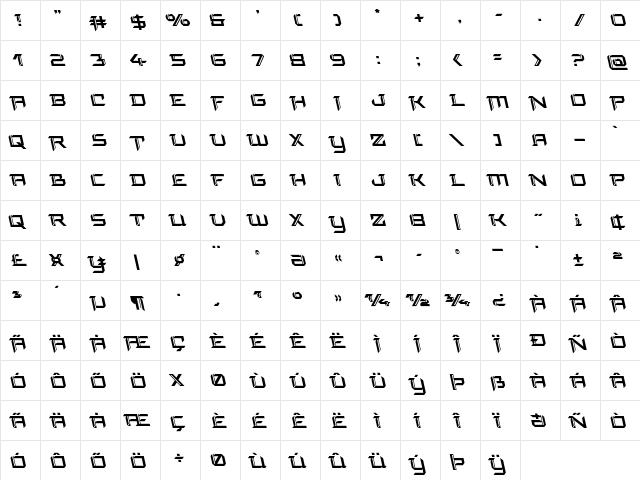
Final Front Leftalic Italic
Design Context for Final Front Leftalic Typeface
Final Front Leftalic is a composed and adaptable typeface that performs quietly and consistently across a wide range of design contexts. The slanted form adds forward momentum and visual energy.
Pro Tip: Use Final Front Leftalic for emphasis, pull quotes, and subheadings where its slanted energy can add rhythm to the layout.